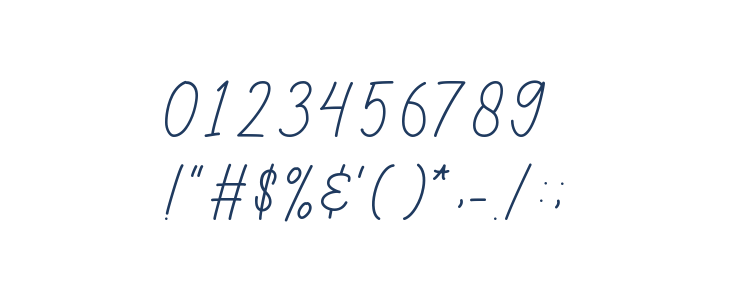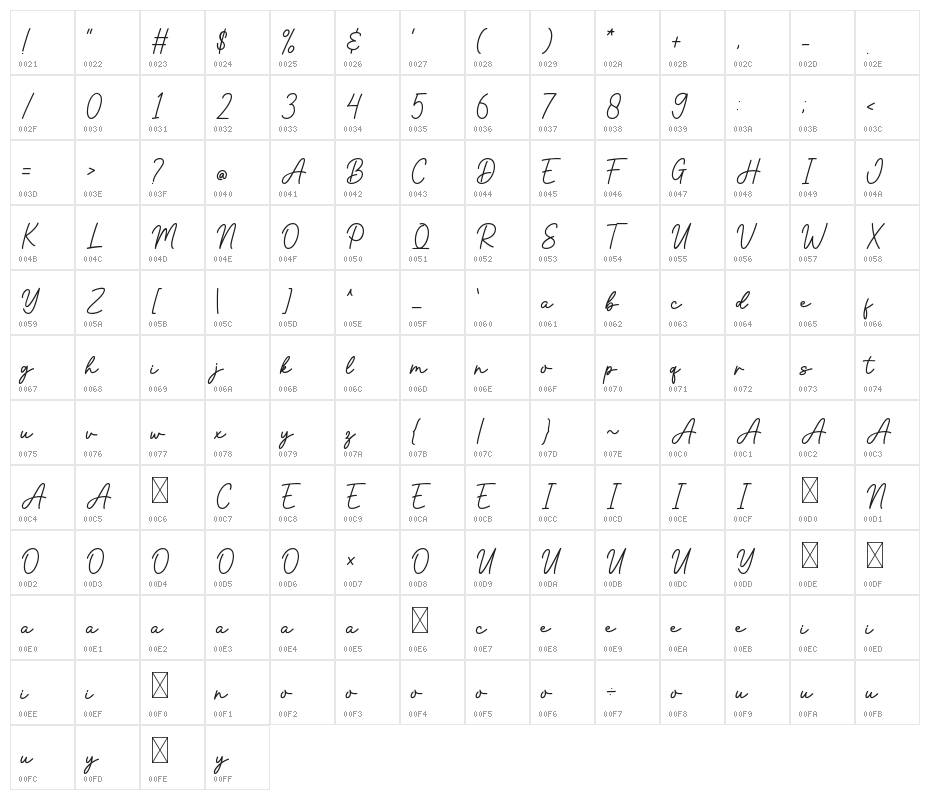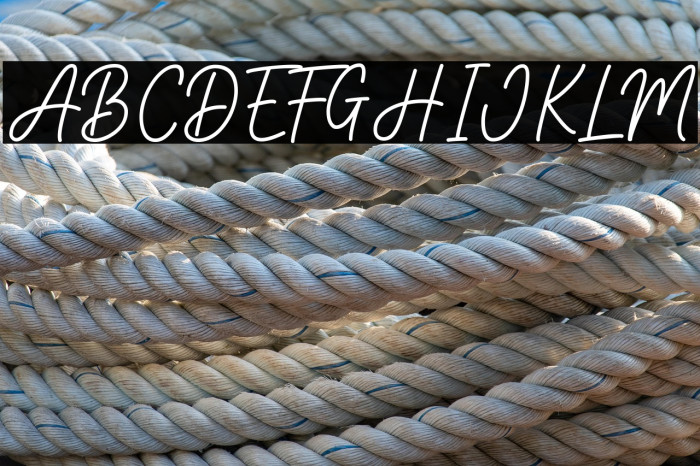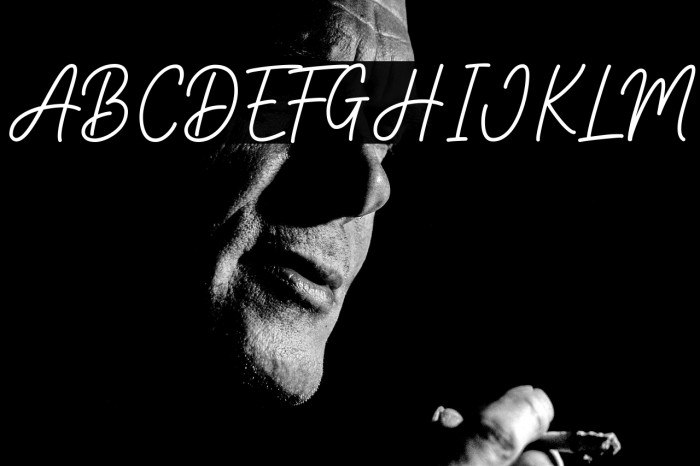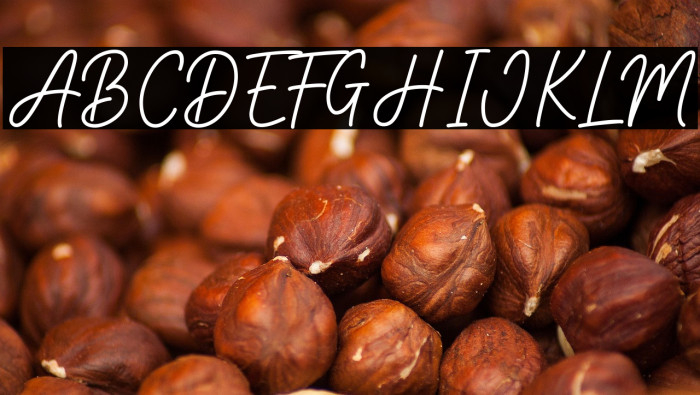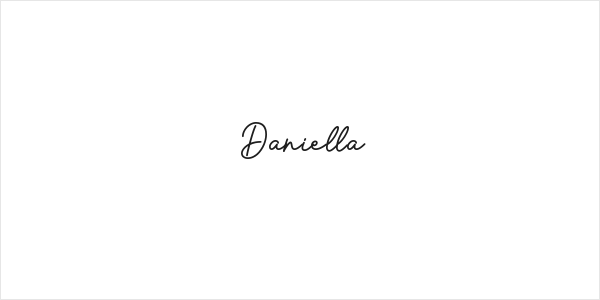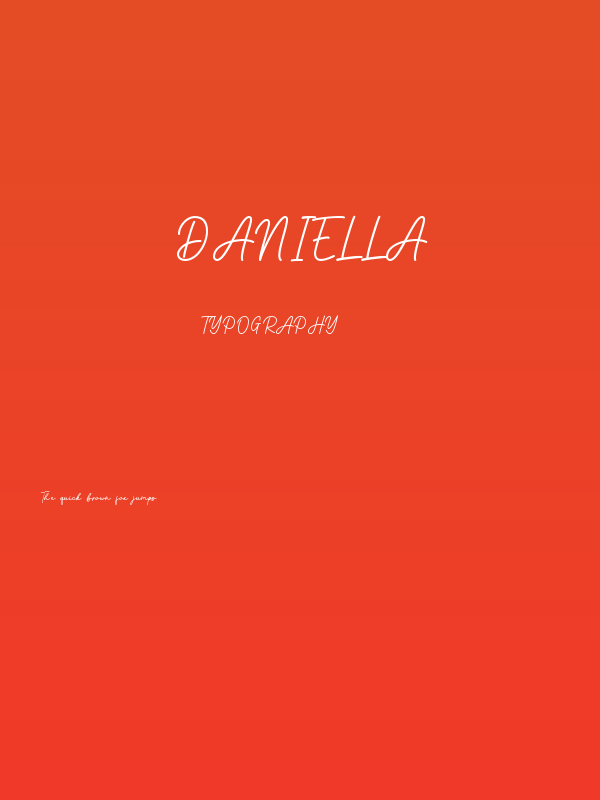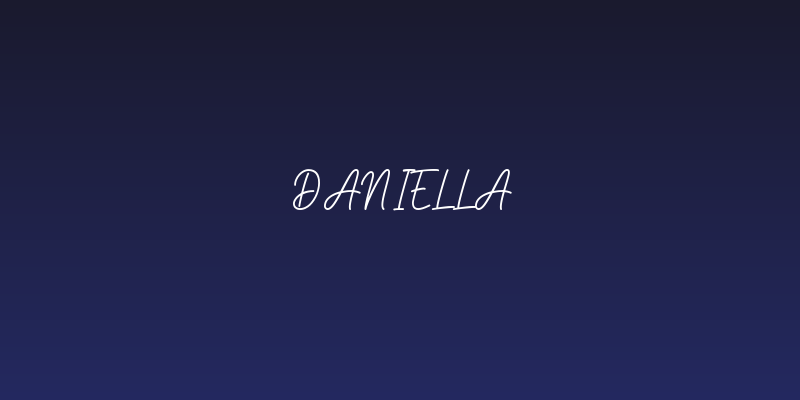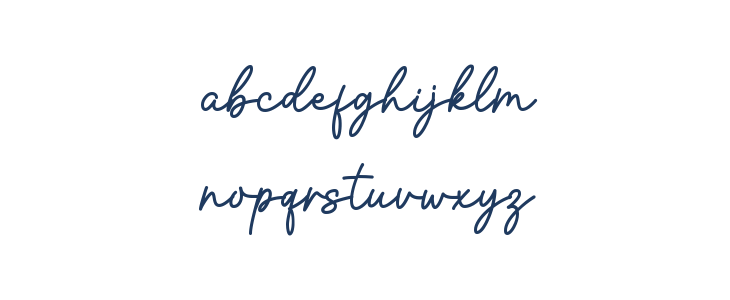
Daniella Font
Daniella Description
This font features a flowing, cursive style with a handwritten appearance. The uppercase letters are elegantly connected, while the lowercase letters maintain a smooth and consistent flow. The numerals are clear and legible, complementing the overall script style. Special characters are designed to match the fluidity of the letters, making them suitable for creative and decorative uses. The strokes are moderately thick, providing a balanced contrast that enhances readability while maintaining an artistic flair.